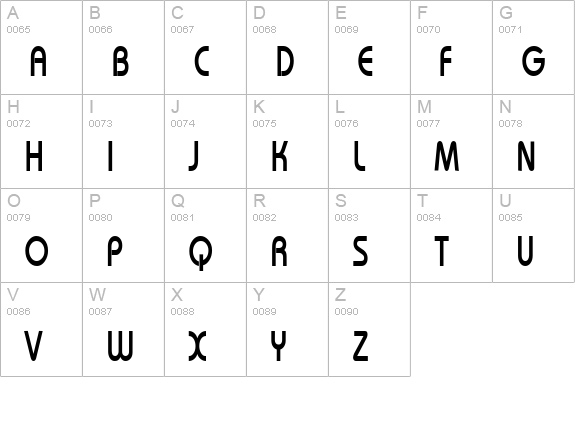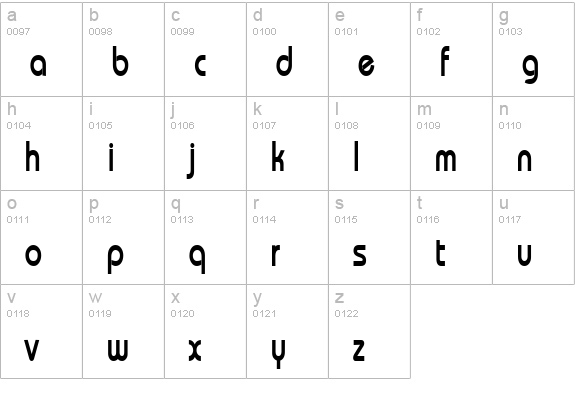
Bimini-Condensed Bold Font Details
Bimini-Condensed Bold is a strong, high-contrast, condensed-width variant in the Bimini typeface family \xE2\x80\x94 well suited to headlines, attention-grabbing titles, and strong calls-to-action.
Bimini-Condensed Bold is a modern and versatile typeface that exudes strength and sophistication. Its bold and condensed design makes it perfect for making a statement in headers, titles, and logos. The sleek lines and strong curves of this font command attention and convey a sense of confidence and authority. What makes Bimini-Condensed Bold even more appealing is that it is available for free download at FontsMarket.com. This means you can easily enhance your designs with this striking font without any cost. Whether you are working on branding materials, posters, or web design, Bimini-Condensed Bold is sure to make a bold impact and elevate your projects to the next level. Download this powerful font today and unleash its potential in your creative endeavors.